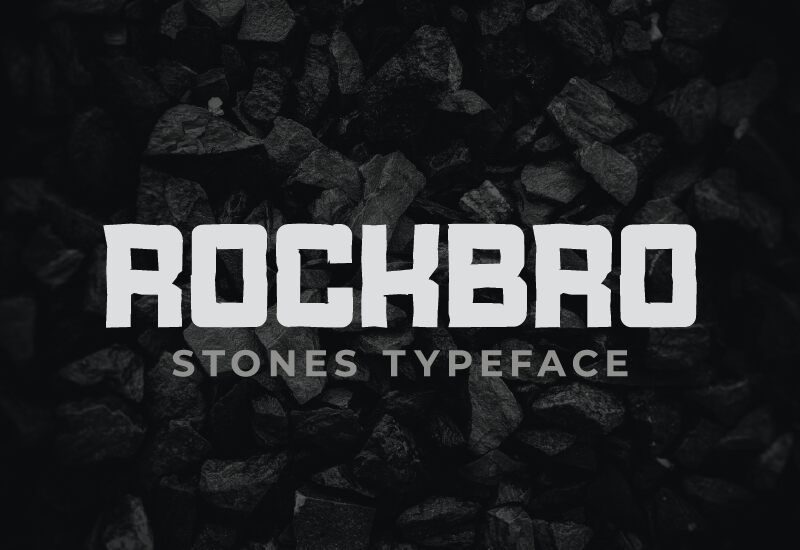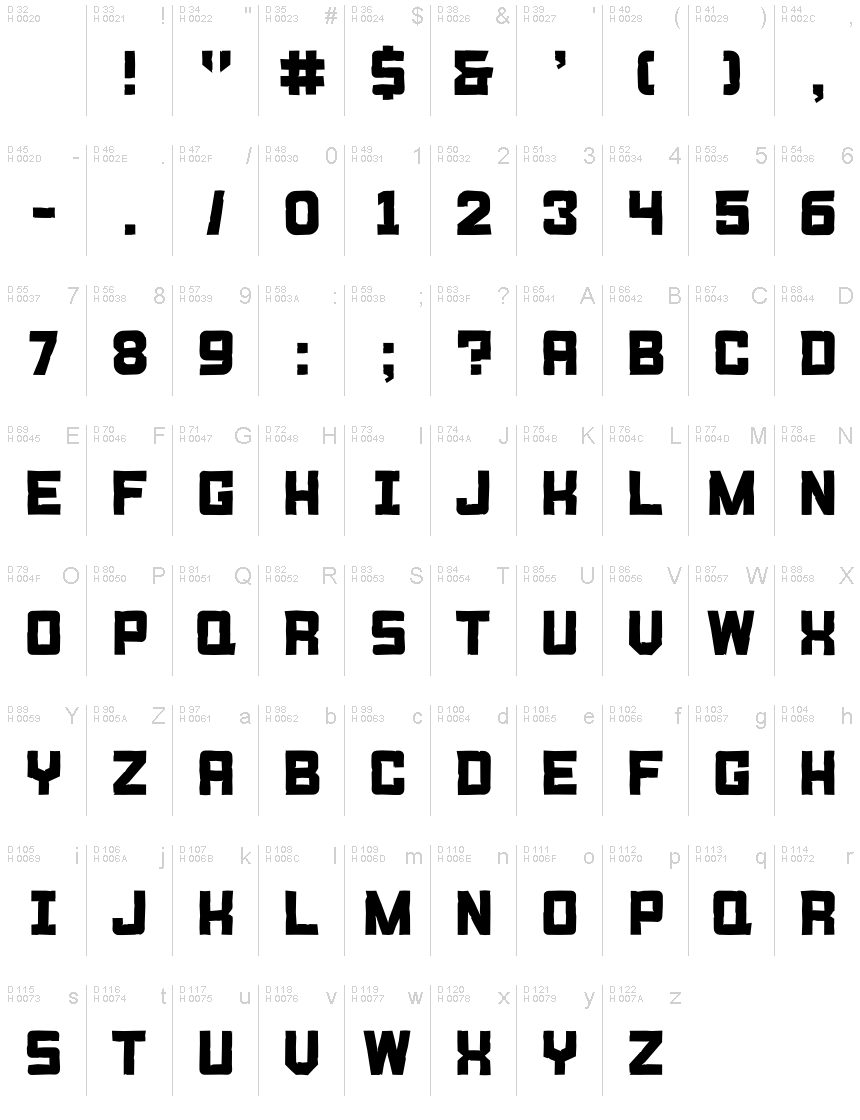
Rock Bro
Rock Bro is a bold, striking display font designed by Ebad Siddique. With an eroded, weathered aesthetic, this expansive typeface exudes a rugged, industrial charm. Its letterforms possess a captivating sense of texture and depth, evoking the weathered surface of stone or metal. The font's powerful, bold strokes and expanded width create an impactful visual presence, making it well-suited for attention-grabbing headlines, logos, and branding elements.
Rock Bro's distinctive style lends itself seamlessly to a variety of design applications, from product packaging and editorial layouts to event posters and signage. Its robust, eye-catching appearance makes it a versatile choice for projects seeking to convey a sense of strength, resilience, or a vintage-inspired industrial vibe. Whether used as a standalone display font or paired with complementary typefaces, Rock Bro has the potential to elevate and define the visual identity of your unique brand or design.